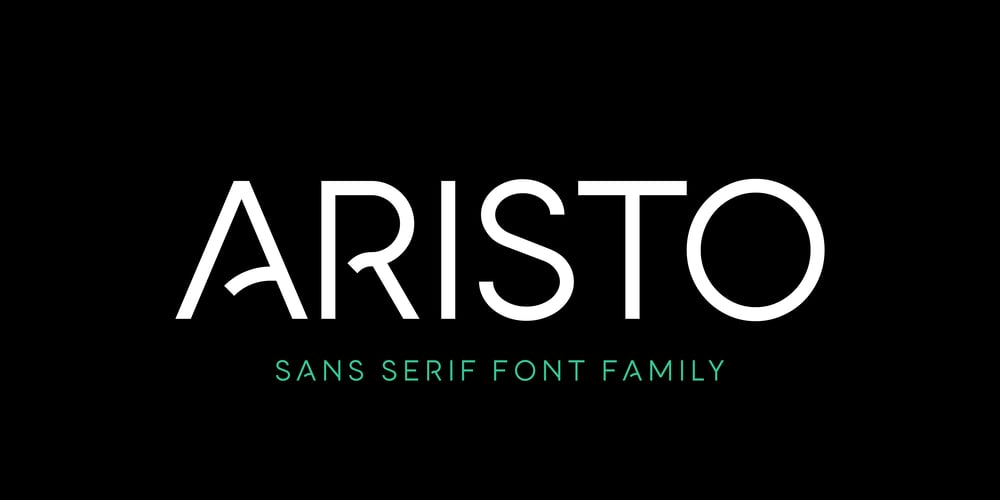
SK Aristo
SK Aristo font
SK Aristo Font Family was designed by Salih Kizilkaya and published by Salih Kizilkaya. SK Aristo contains 10 styles and family package options. SK Aristo is a modern geometric and grotesque font. It was designed by Salih Kızılkaya in 2020, taking into account the current design needs. It meets all the typographic needs of your design and offers full support for the Latin alphabet. SK Aristo consists of 10 different fonts and includes a total of 5220 glyphs.